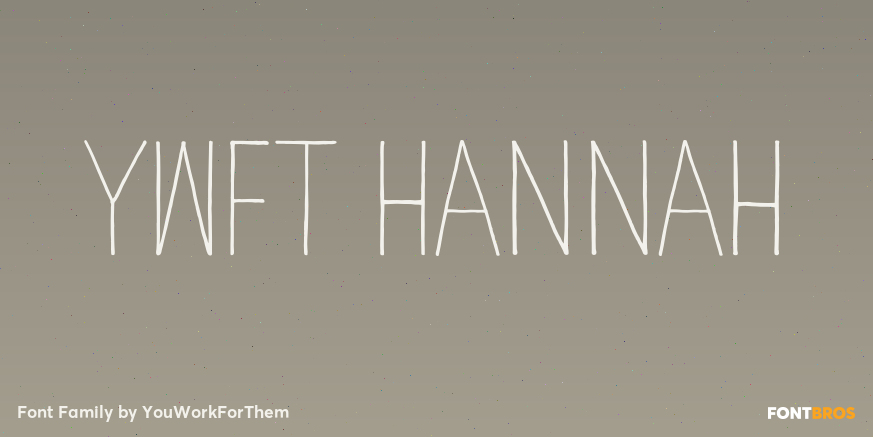
YWFT Hannah
About YWFT Hannah
YWFT Hannah is a type design comprised of three versions that work together as one, producing not variation and contrast between weights but between widths. The loose, hand drawn quality adds yet another layer of personality to the font. Hannah is similar…